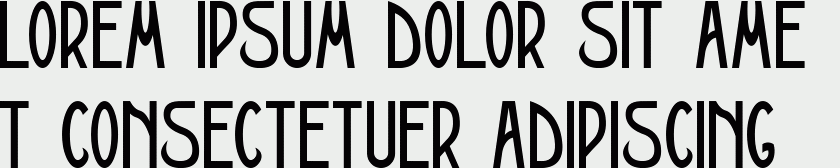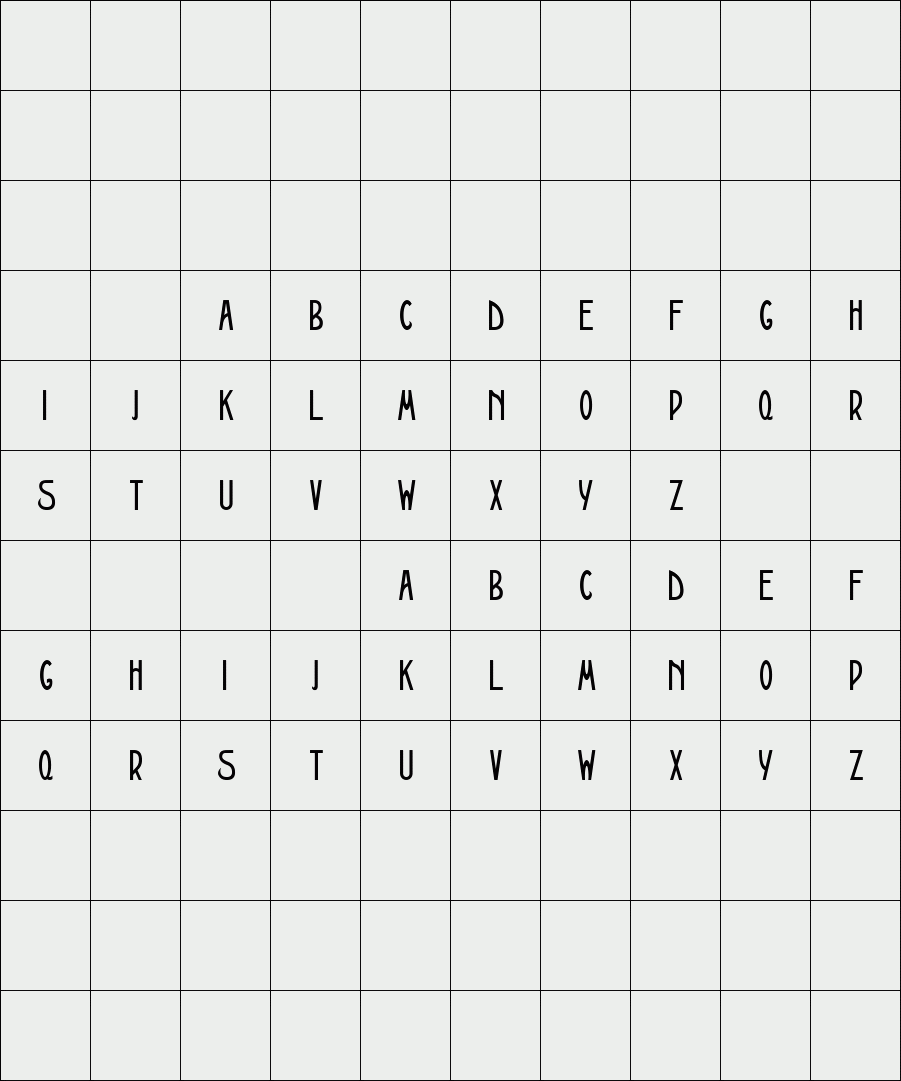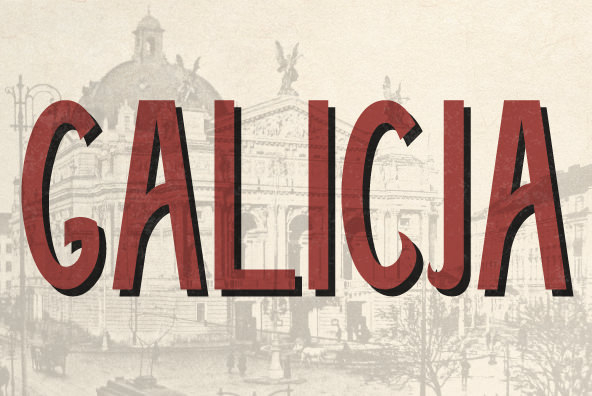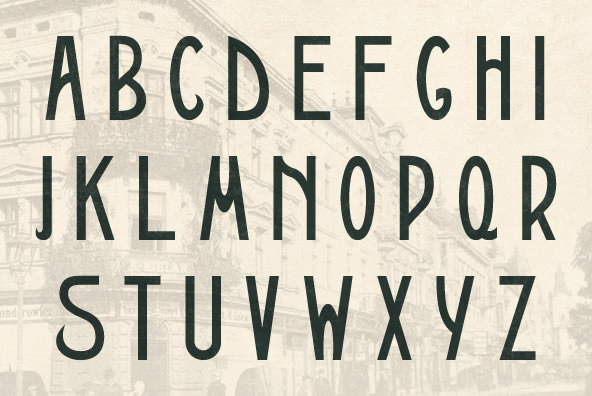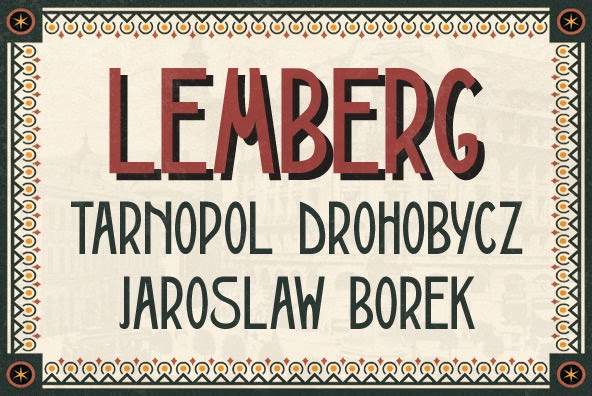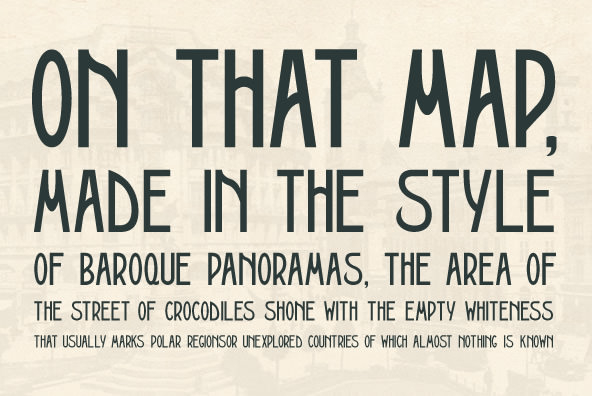
Galicja
Galicja is a typeface influenced by Polish Art Nouveau / Secession styles of the early 20th Century. It is based on a poster printed in 1911 by the Piller-Neumann printshop in Lwow (present day Lviv, Ukraine). Galicja is part of a series inspired by the aesthetics of Poland, circa 1908 to 1939.
Designer: Brendan Ciecko